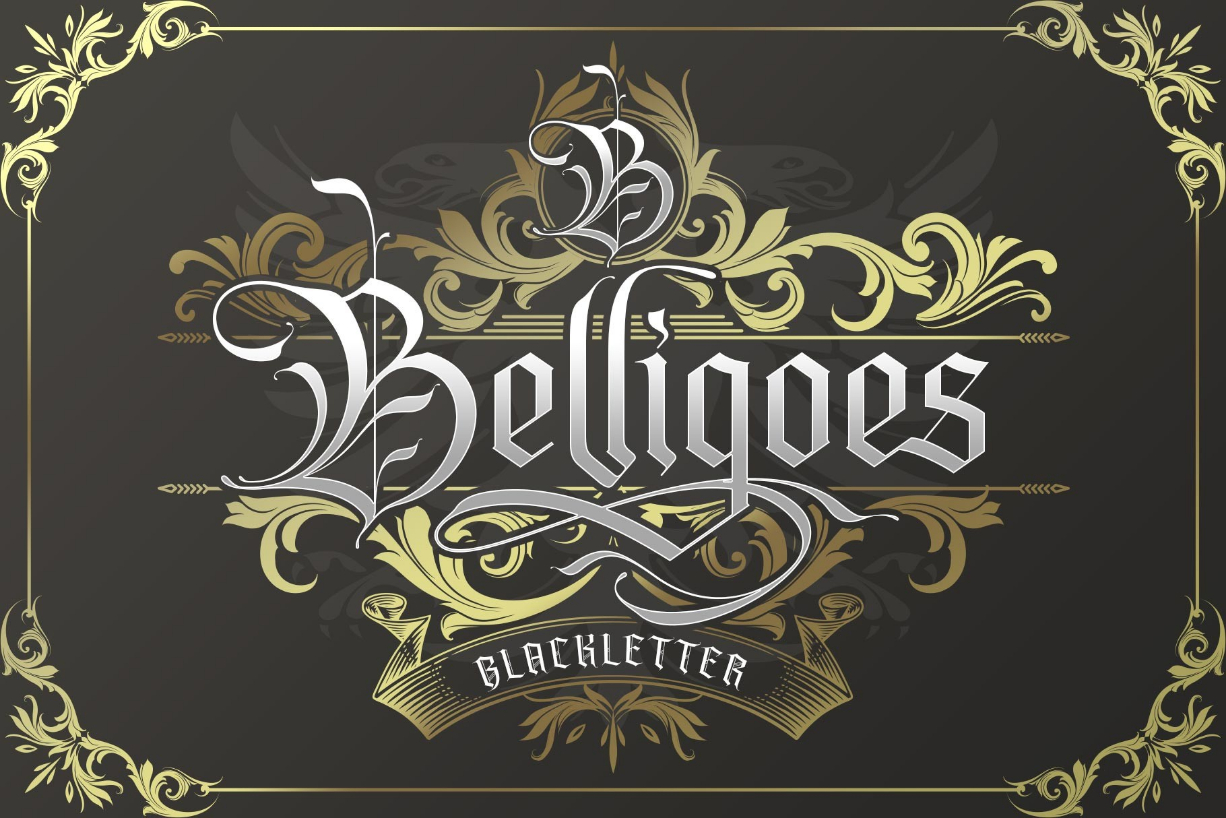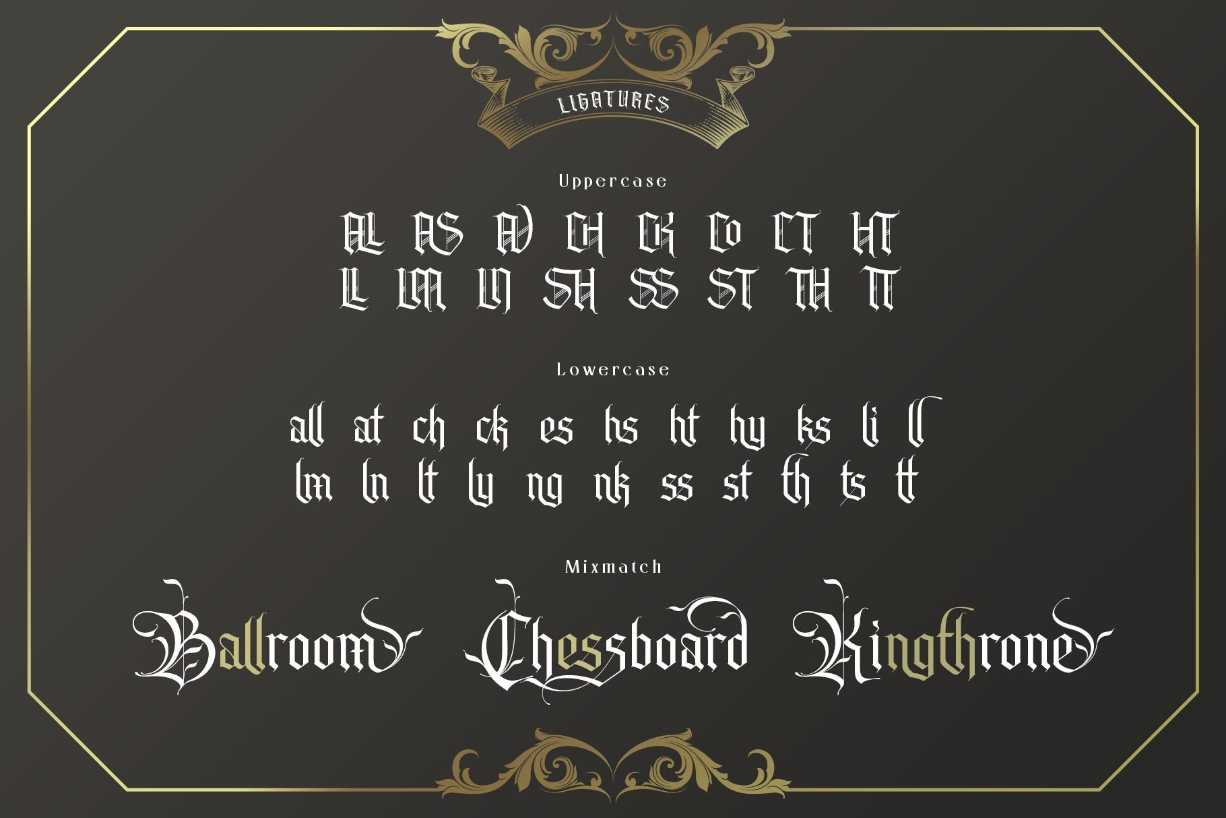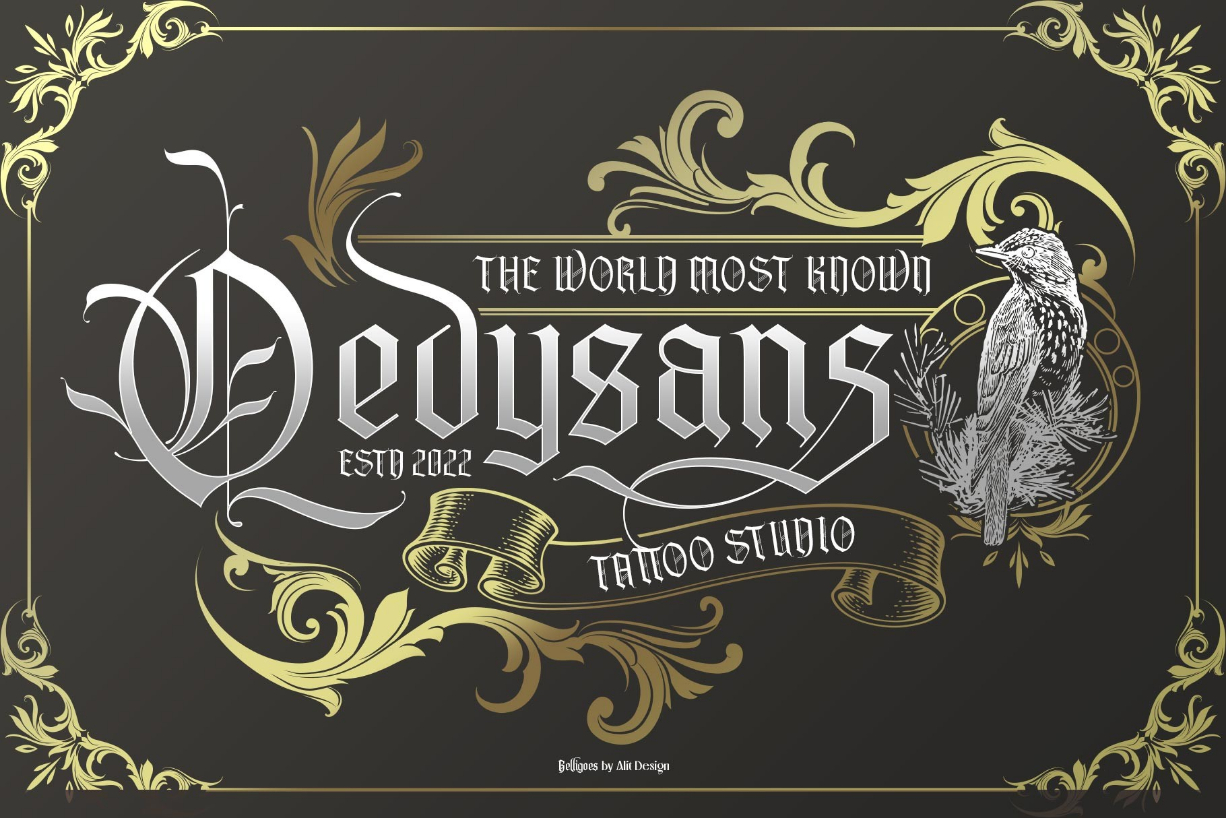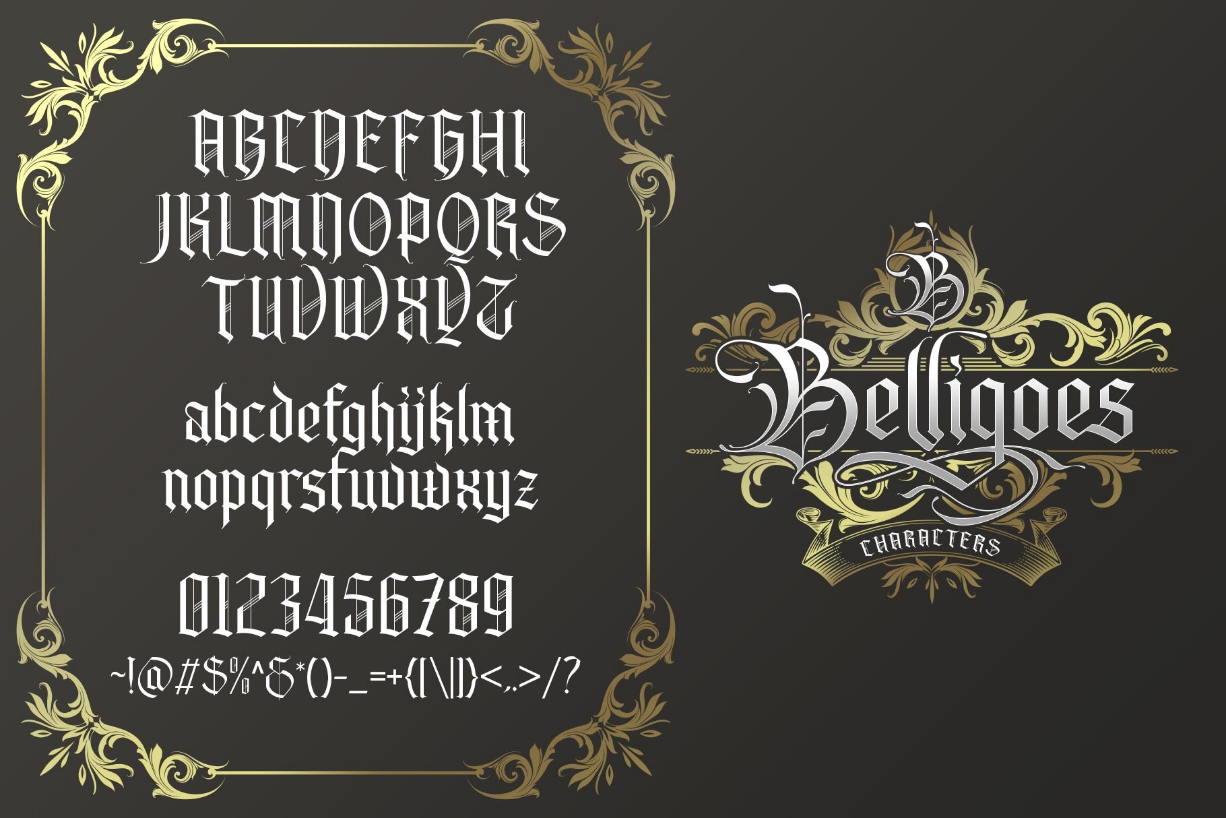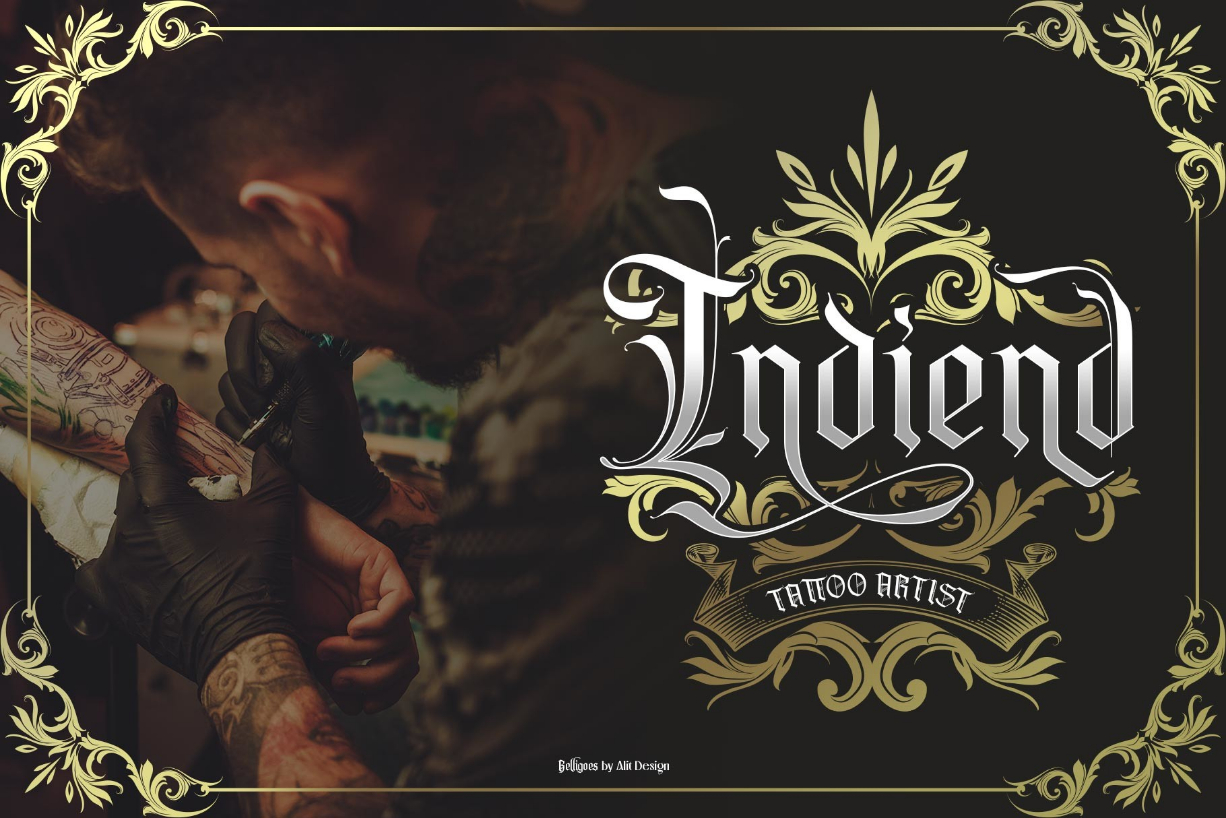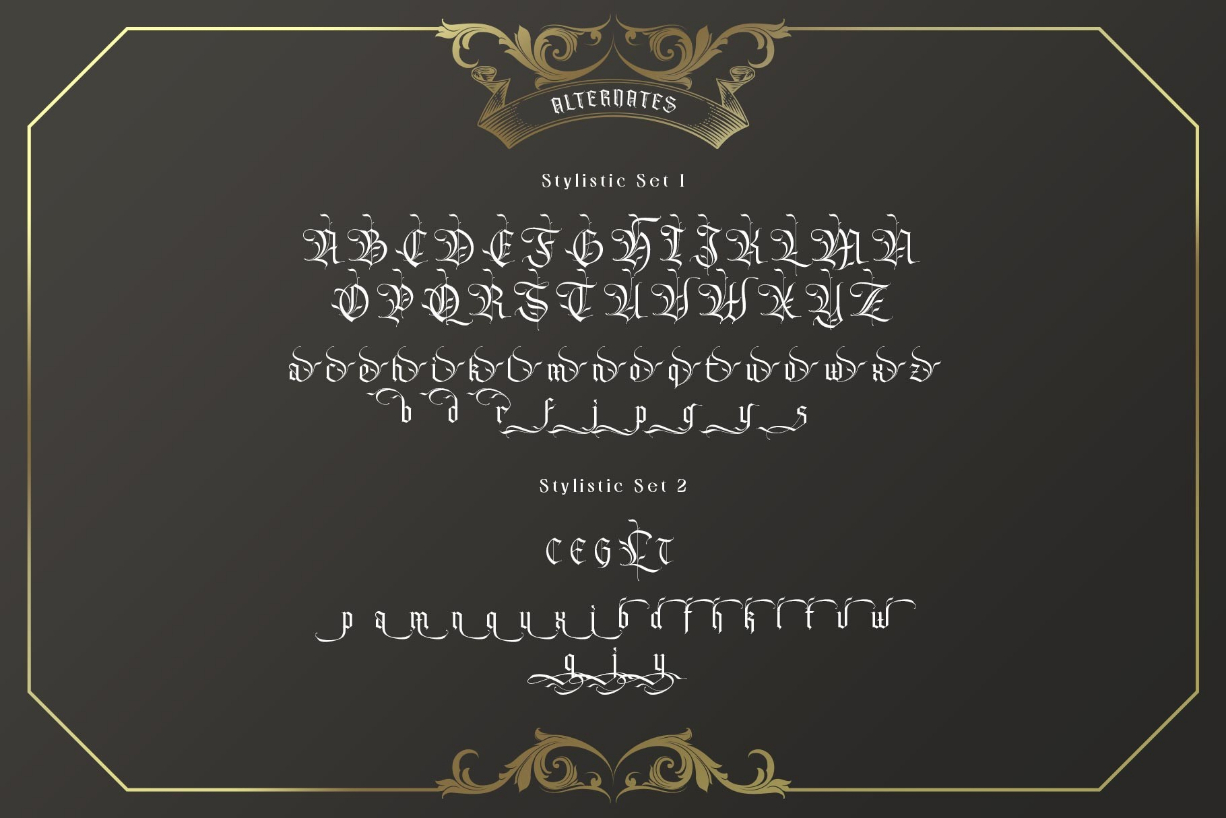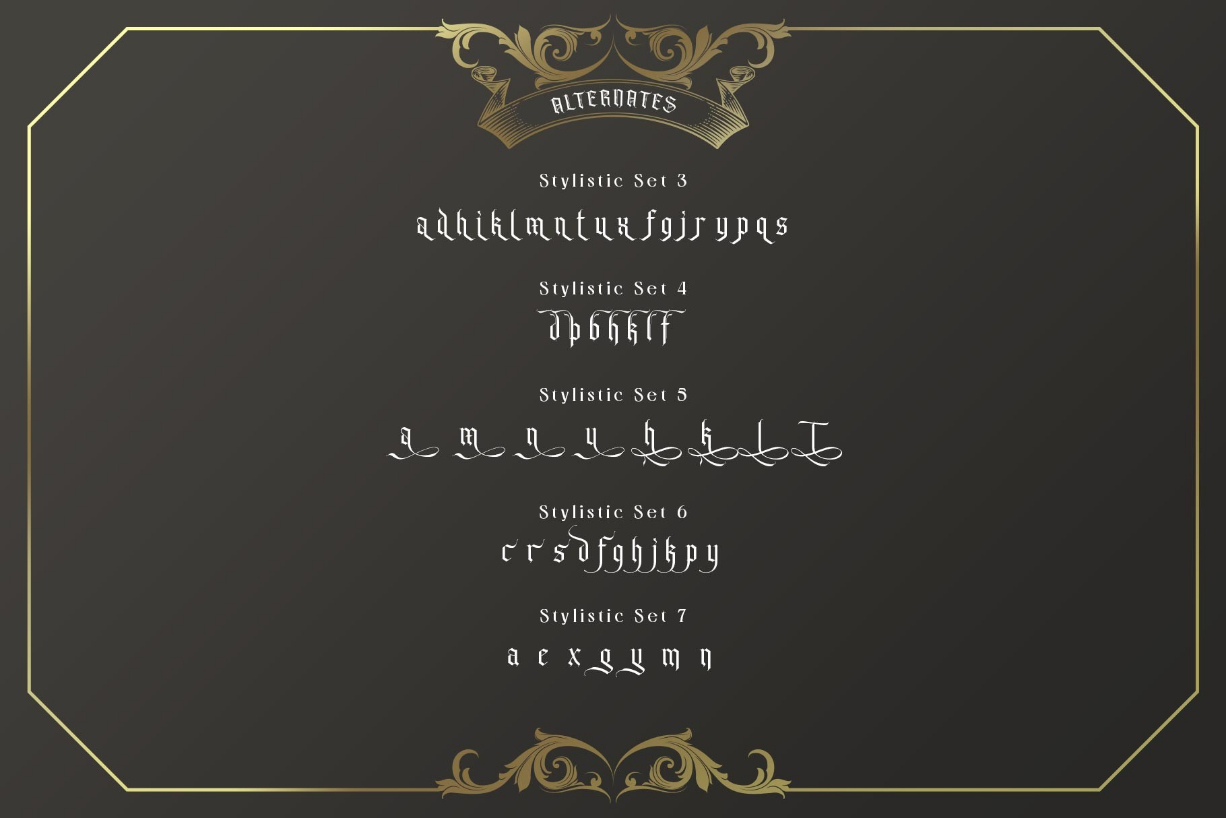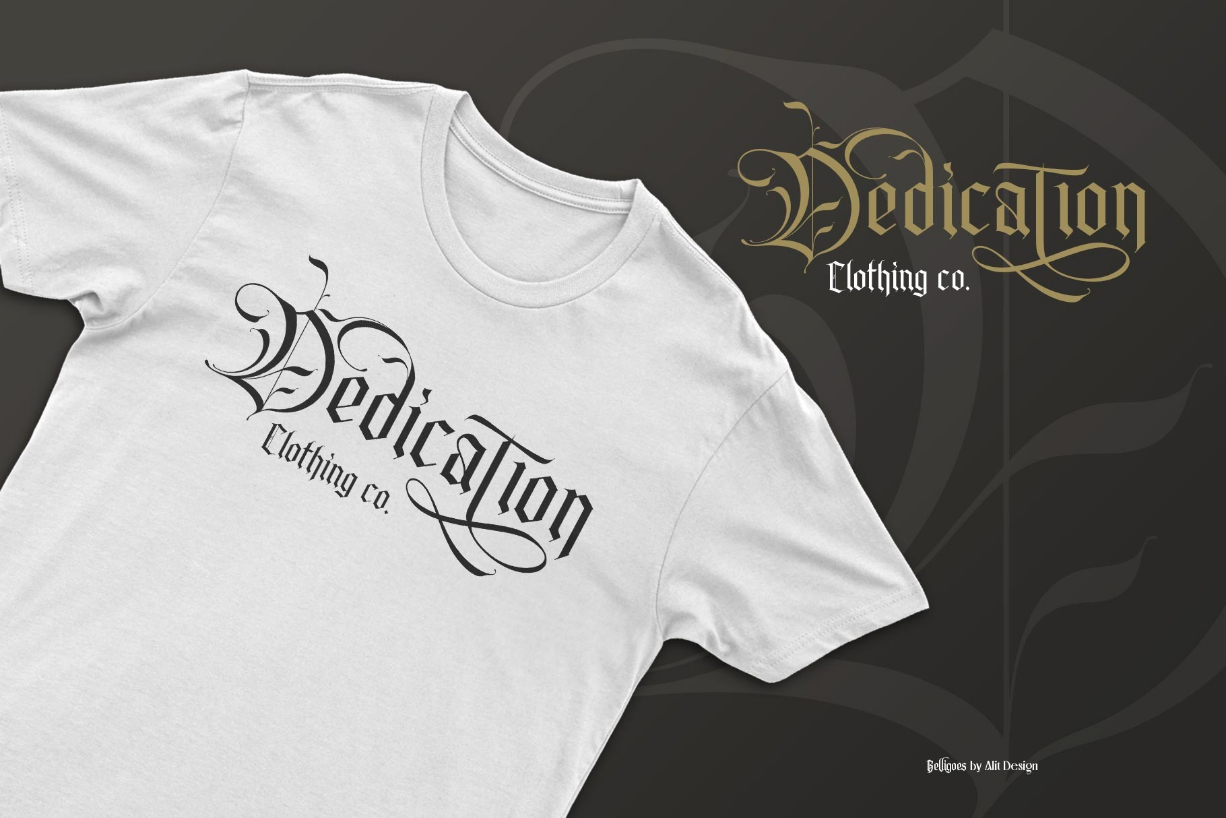
Belligoes Font
Belligoes is an assertive and distinct blackletter font. This font is PUA encoded which means you can access all of the glyphs and swashes with ease!